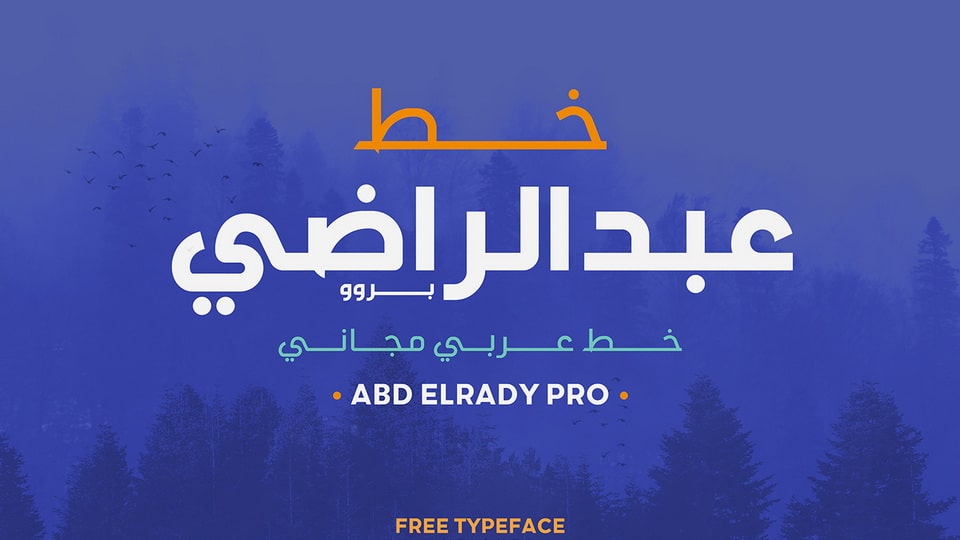
Download Abd ElRady Pro font, an Arabic typeface with two styles. Abd ElRady Pro is much simpler and has a familiar and coordinated shape, which makes it more likely to be one of the most used fonts throughout the day.
Designer: AhmED ElqSas